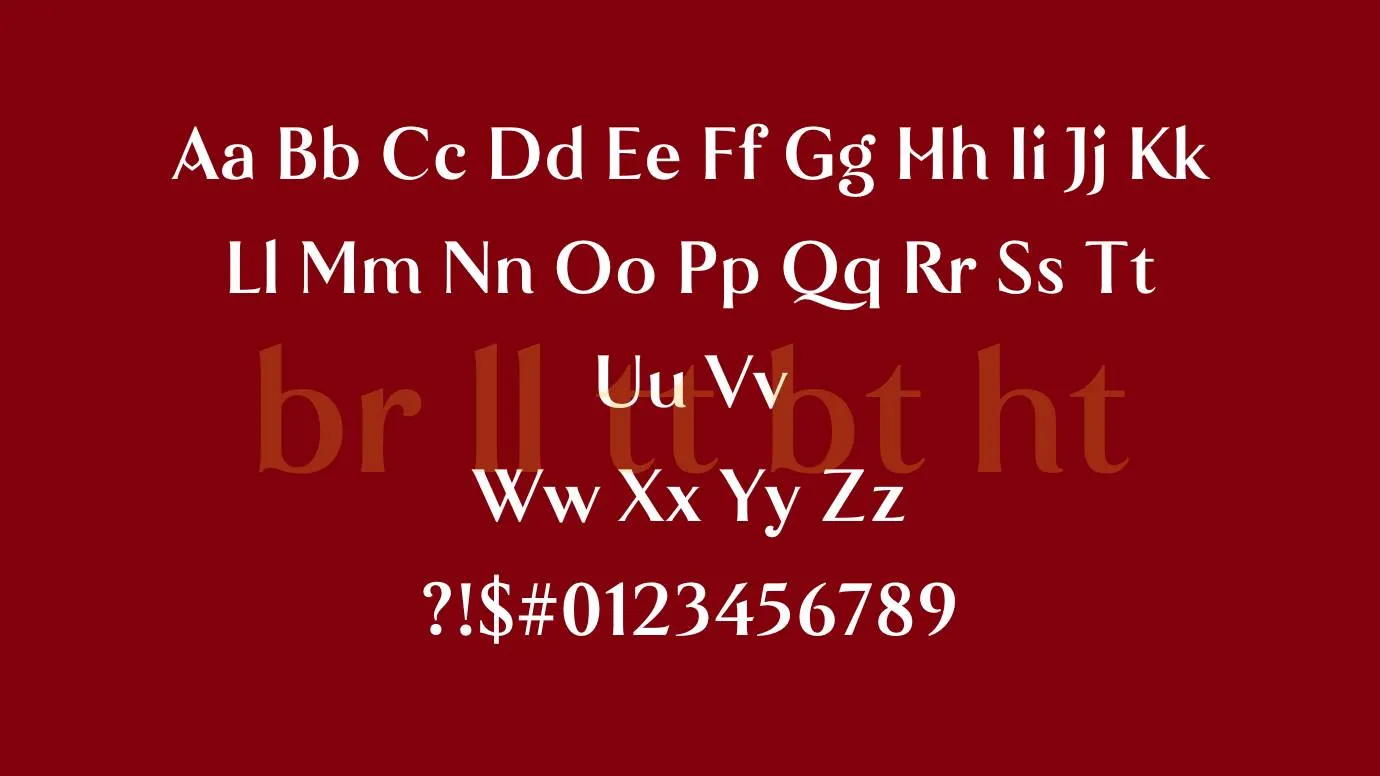
In this post, We are discussing Histograph Font that comes in the serif family. It has stylish serif characters and modern glyphs. Digitype Studio is a famous font studio that published this font.
Histograph Font
NameHistograph Font
TypeSerif
DesignerDigitype Studio